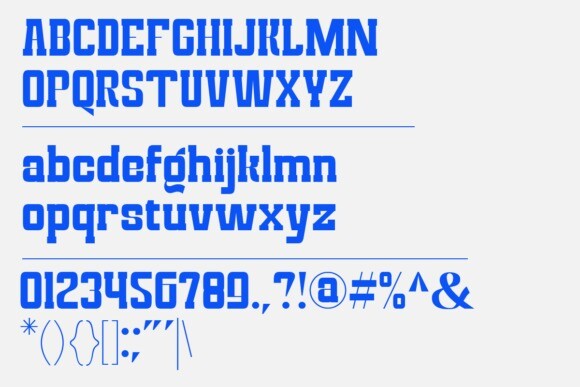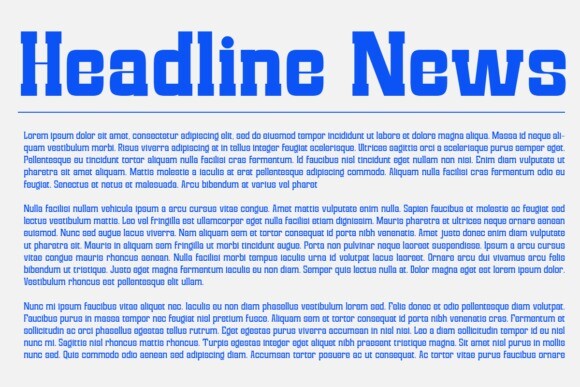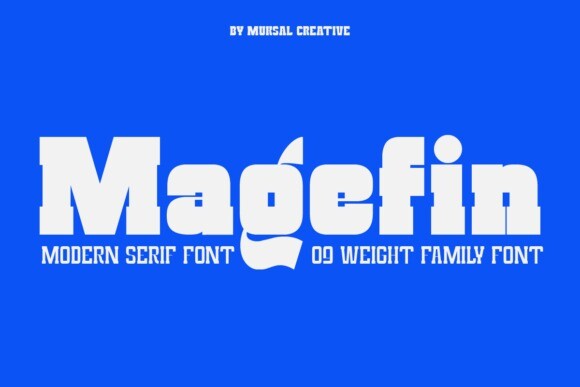
Magefin Font
Magefin Font, a modern serif font that seamlessly blends classic elegance with contemporary sophistication. With clean lines and refined details, Magefin exudes a timeless charm while maintaining a fresh and up-to-date appeal. Ideal for a wide range of design projects, from professional documents to stylish branding, Magefin brings a touch of modern class to your typography. Elevate your visuals with the versatile and tasteful aesthetic of Magefin, making every word a statement of contemporary refinement.